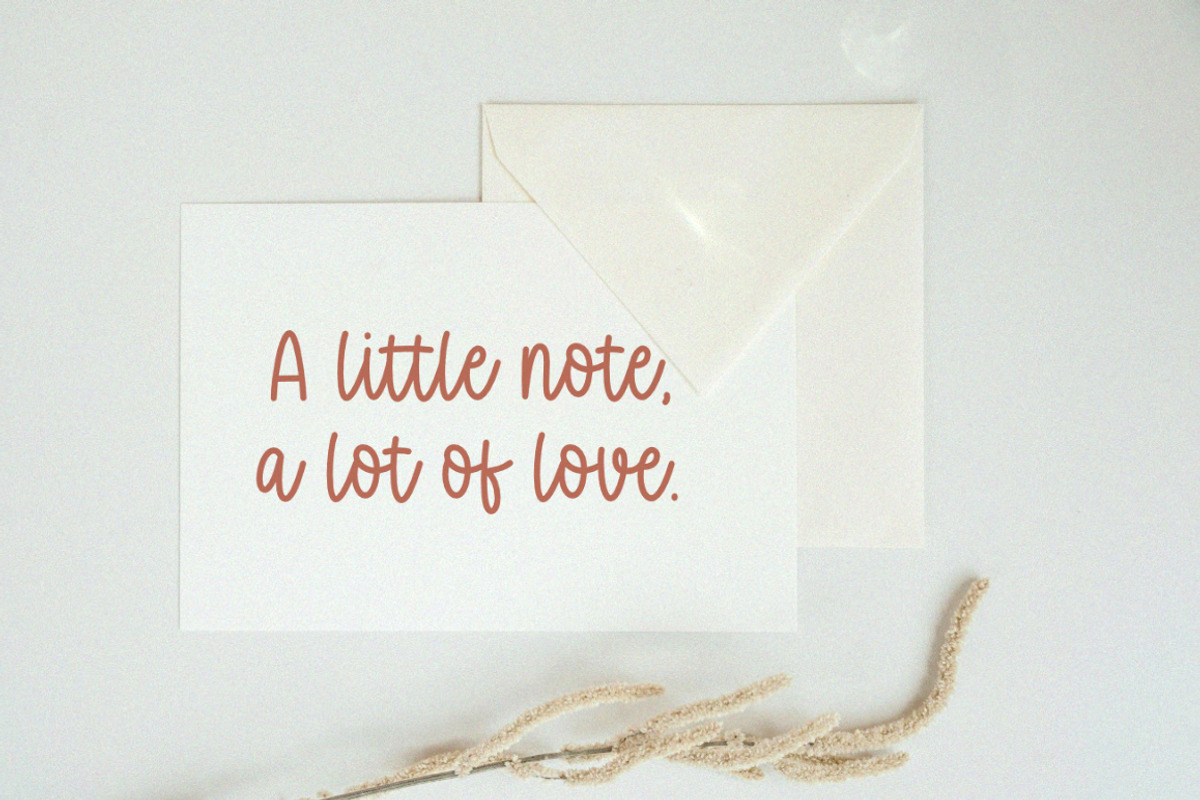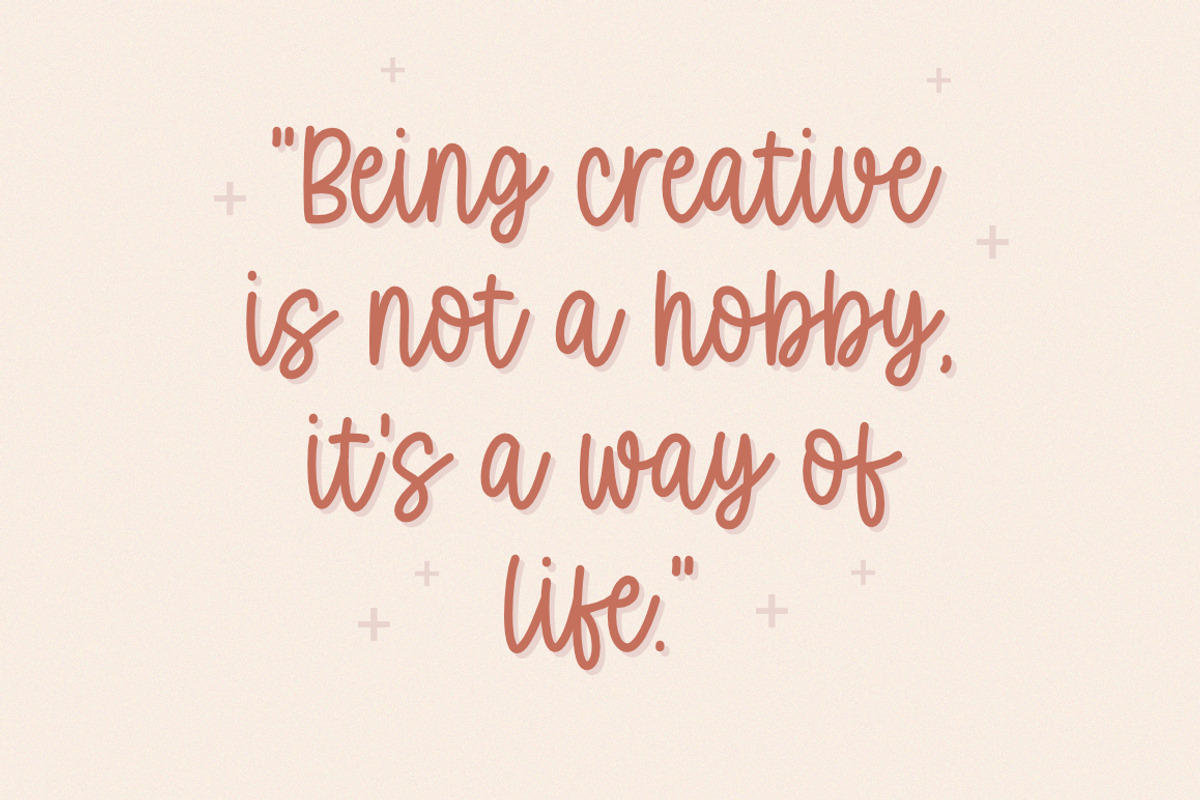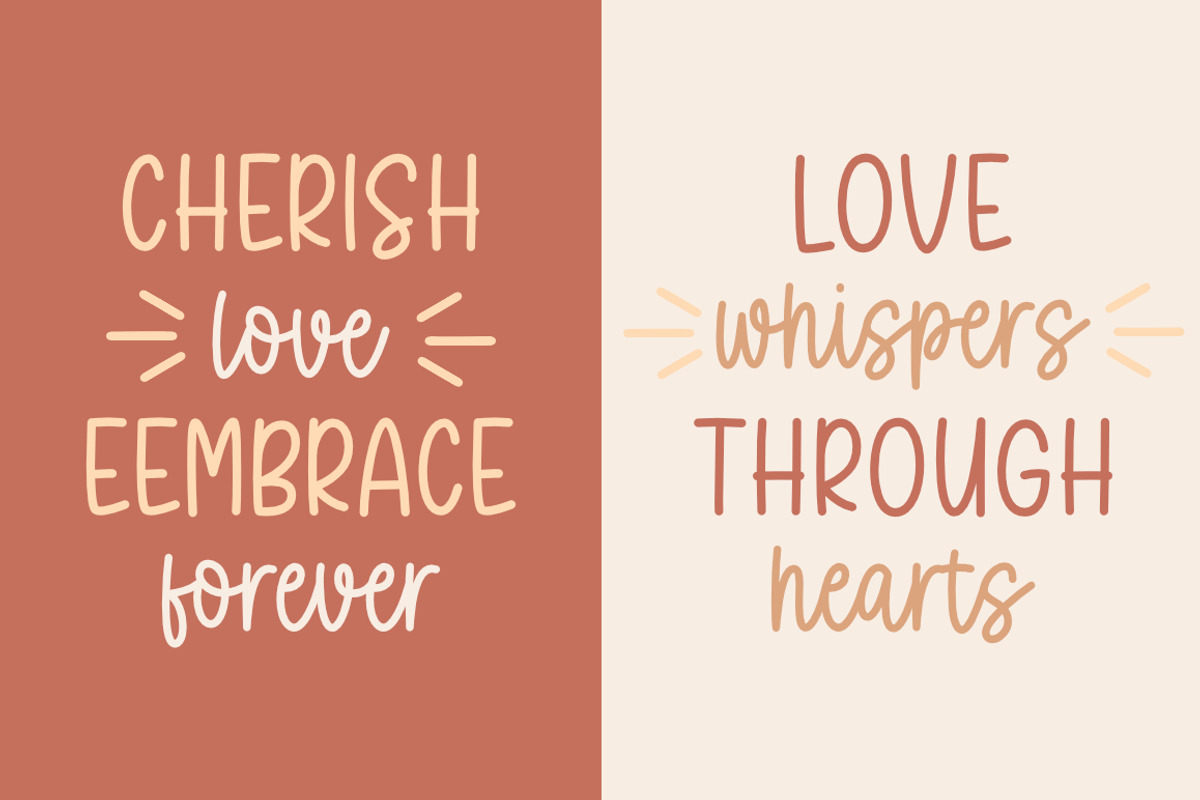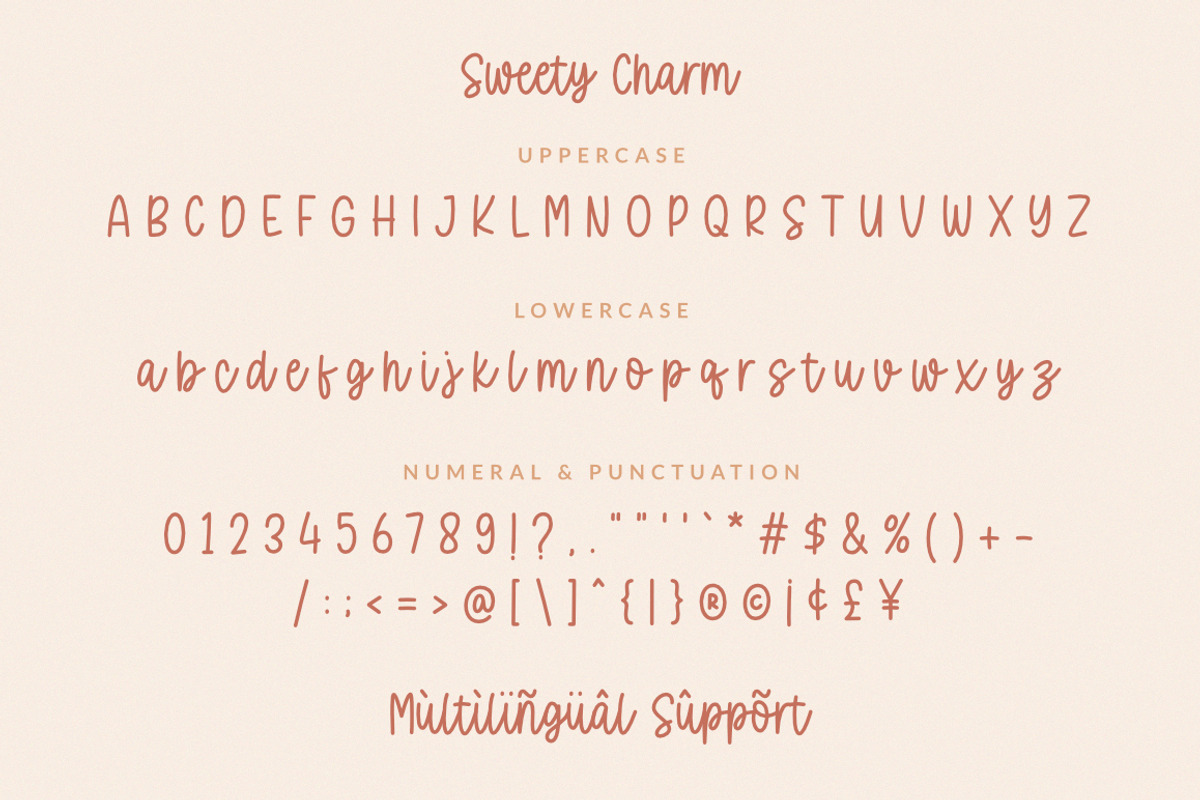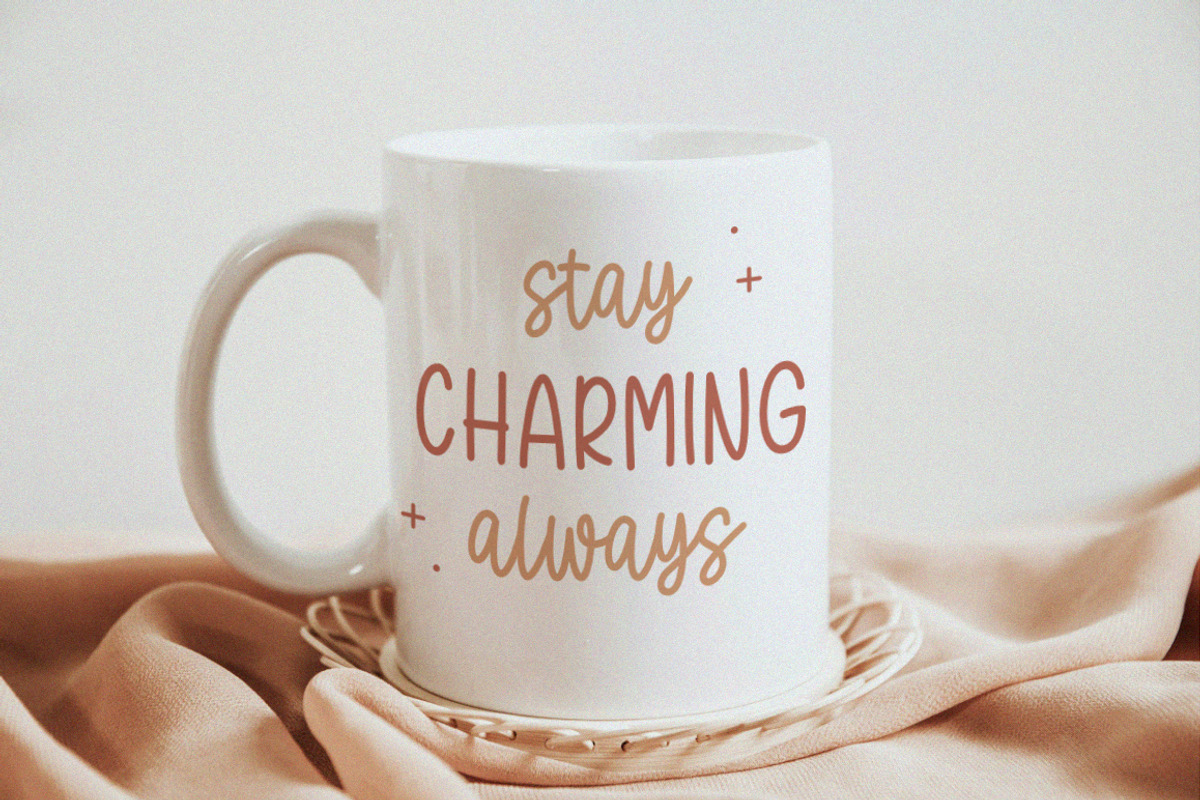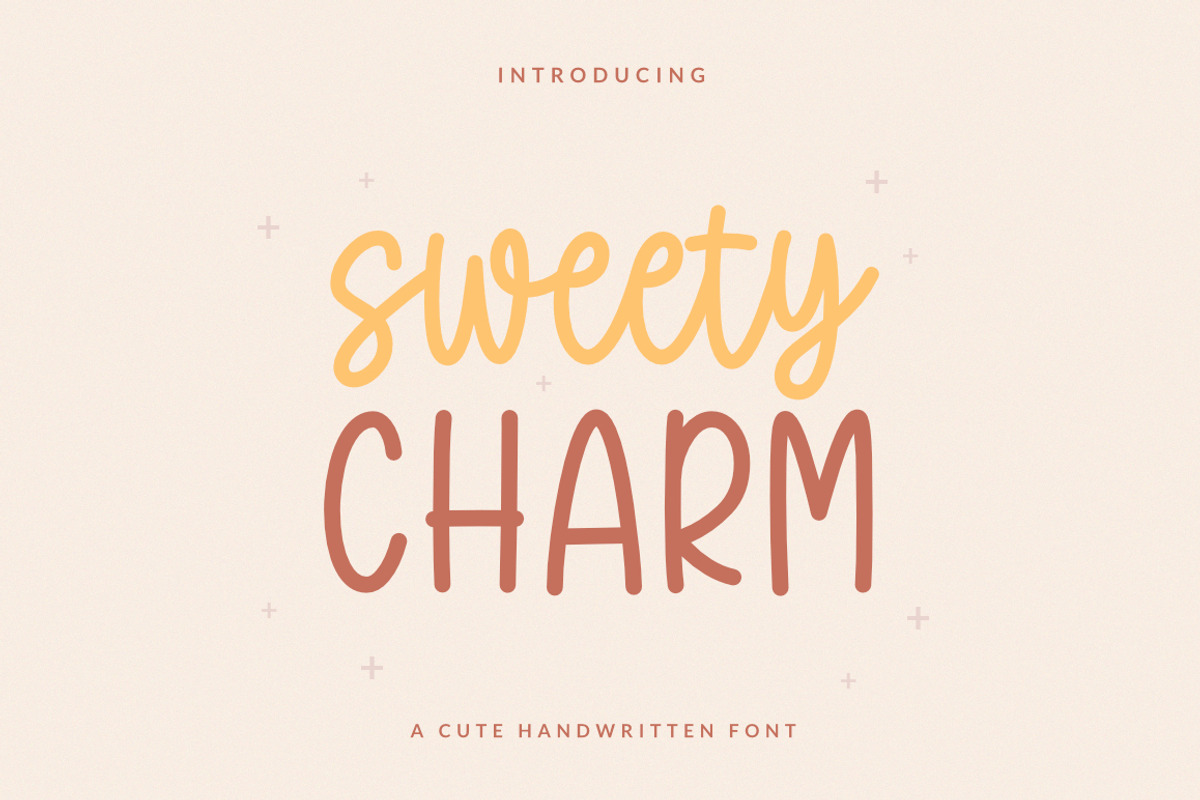
Sweet Charm - Cute Handwritten Font
Sweet charm is a cute handwritten font. This font will perfect for greeting cards, logos, posters, invitations, stickers, quotes, mugs, t-shirts.